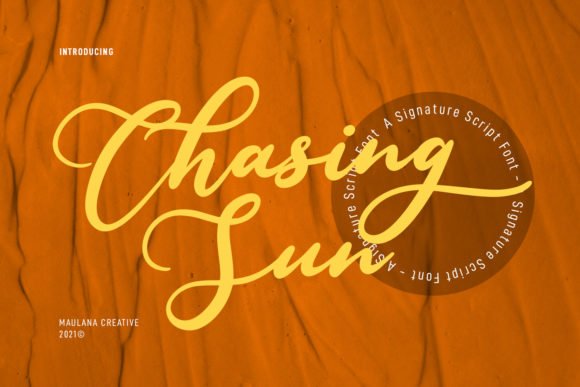
Unleashing the Warmth of Chasing Sun Font
As a designer, you’ve been there – staring at a blank canvas, waiting for inspiration to strike. The perfect moment arrives when you stumble upon a font that transports you to a world of elegance and sophistication. For many, that moment comes with Chasing Sun Font, an exquisite script font that effortlessly combines timeless classic calligraphy with a modern twist.
With its impeccable form and balanced, varied strokes, Chasing Sun Font was designed to elevate the beauty of any project. Whether you’re crafting a wedding invitation, a business logo, or a digital advertisement, this font is sure to leave a lasting impression. Its versatility and charm make it a valuable addition to any designer’s toolkit, allowing you to create stunning visual narratives that captivate and inspire.
Key Features of Chasing Sun Font
- Unique Characteristics: Hand-drawn design with a playful, energetic feel, perfect for creative and modern projects
Chasing Sun Font Review
I recently had the chance to work with the Chasing Sun Font, and I must say it’s a unique addition to any design project. Here are my thoughts on what works well and what doesn’t.
- Customizable: The font offers a range of customization options, from size and color to spacing and alignment.
- Unique Style: The Chasing Sun Font has a distinct, hand-drawn feel that adds a touch of personality to any design.
- Legibility: Despite its quirky style, the font remains legible even at smaller sizes.
- Not Ideal for Body Text: While the font works well for headlines and titles, it may not be the best choice for body text due to its unconventional style.
Overall, the Chasing Sun Font is a great choice for designers who want to add some personality to their projects. While it may have some limitations, its unique style and customization options make it a great addition to any design toolkit.
Tips for Getting the Most Out of Chasing Sun Font
1. Experiment with different font sizes and colors to achieve the desired contrast and emphasis.
2. Use Chasing Sun Font in combination with other fonts to create a unique and visually appealing design.
3. Consider using Chasing Sun Font for headings and titles to create a striking visual effect.
1. Branding and logos
2. Social media graphics and posts
3. Print materials (e.g., business cards, brochures)
Alternatives to Chasing Sun Font for Designers
Compared to Chasing Sun Font, Great Vibes Font has a more elegant and sophisticated feel, making it suitable for design projects that require a touch of luxury and sophistication. While Chasing Sun Font has a more distressed and vintage look, Great Vibes Font is more refined and polished.